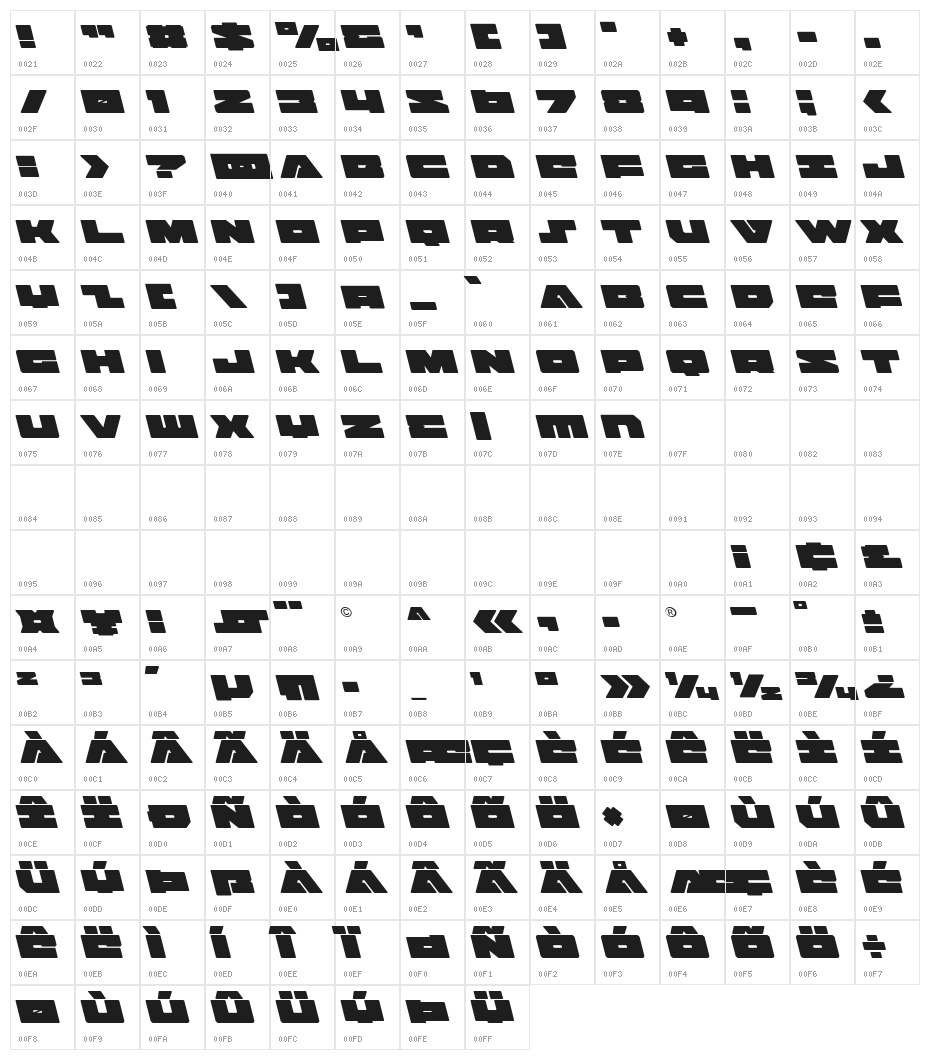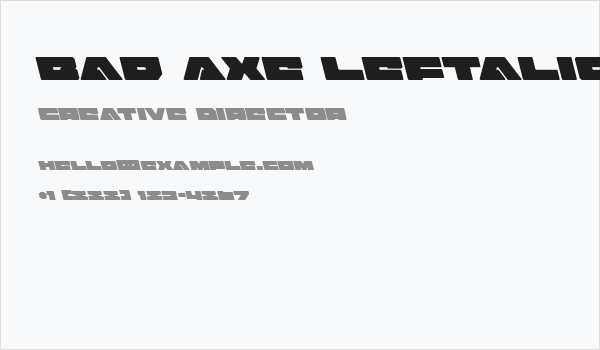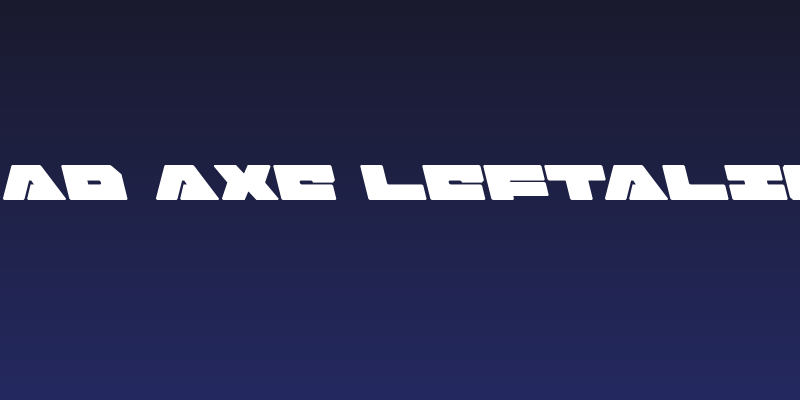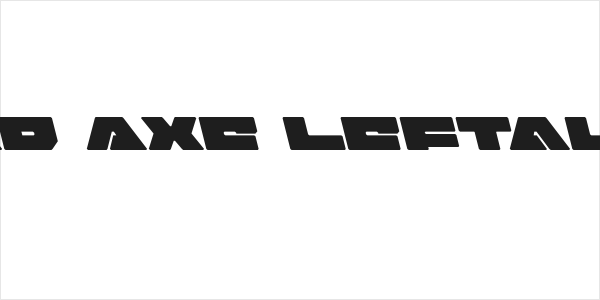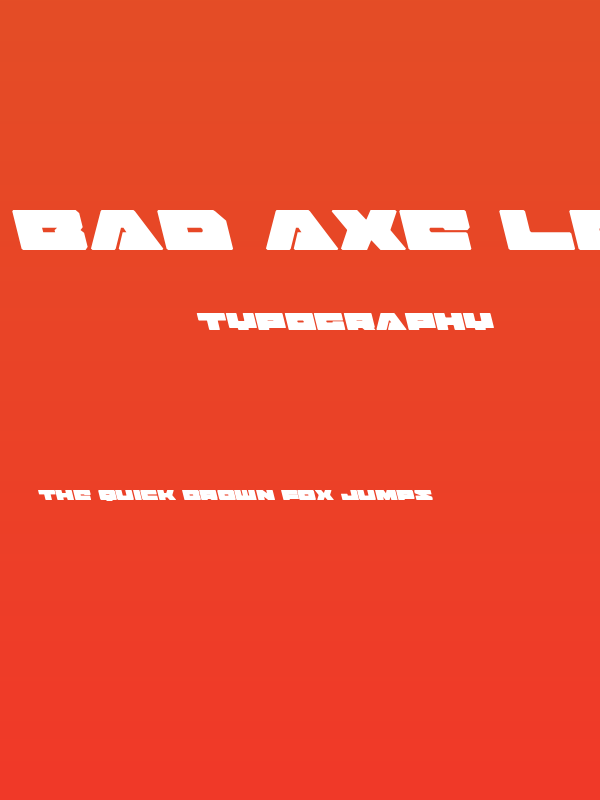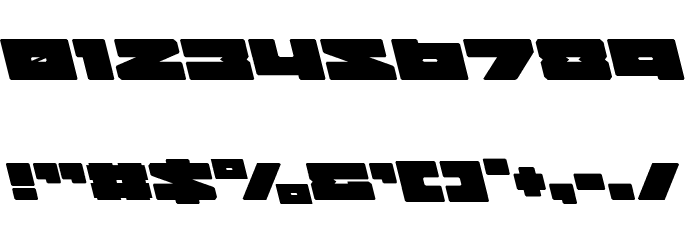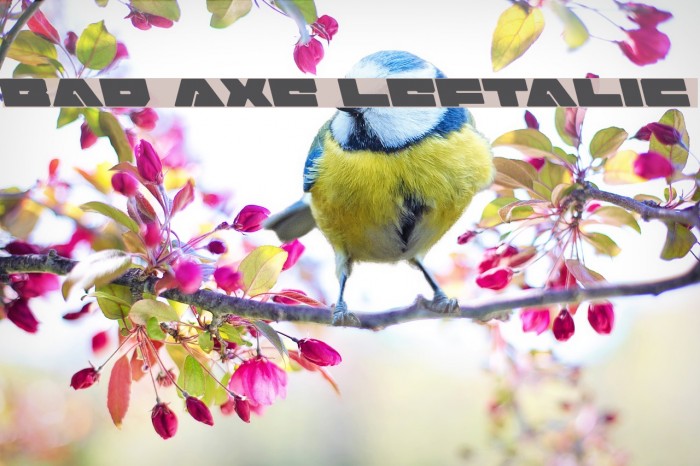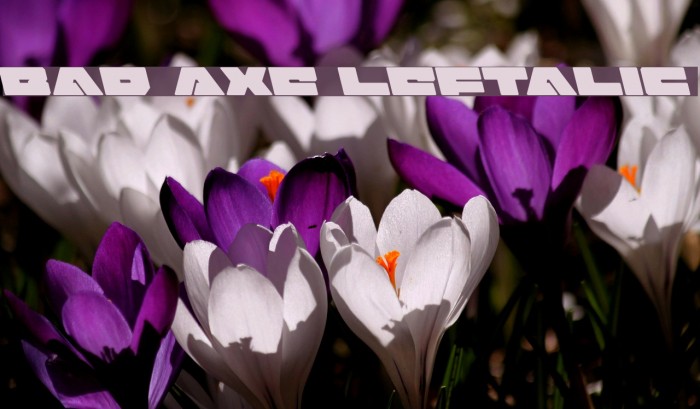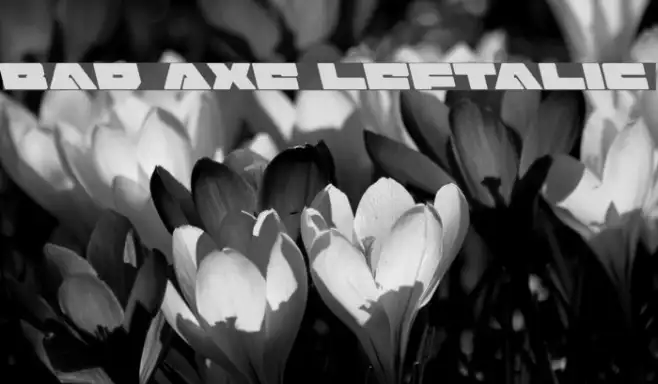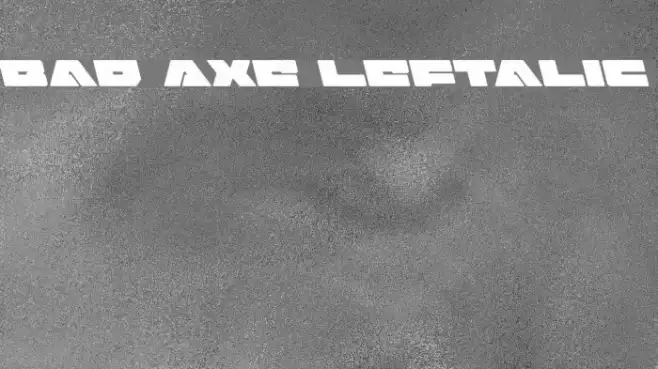
Bad Axe Leftalic Font
Bad Axe Leftalic Description
This font features a bold, angular design with a strong geometric influence. The characters are blocky and robust, giving off a futuristic and industrial vibe. Each letter is uniquely stylized with sharp edges and a slight slant, adding a sense of motion and dynamism. The numbers and special characters maintain this bold and edgy aesthetic, ensuring consistency across all glyphs. The font's heavy weight and distinctive style make it ideal for impactful designs that require a strong visual presence.
| Proposed Projects | Perfect for video game titles, tech branding, posters, and any project needing a strong, modern look. |